Bermondsey Street
Bermondsey Street is a long thoroughfare starting at
Tooley Street in the north, running beneath all the tracks of London
Bridge Station, then largely south-easterly turning southerly by St
Mary Magdalen churchyard to the south, close to Tower Bridge Road. And,
yes, there really is (in 2024) a place of refreshment at no. 161 called
'F*ckoffee' – sadly, for reasons of good taste we are unable to show
this piece of lettering.
London Bridge Station
David Gaylard writes: 'I had lunch at the Woolpack pub
here and had a walk before. I hadn't noticed how ornate the arches were
on the London Bridge station side. You can see where one has been
carefully repaired and the modern stonemason has added a snake's
head on top.
Below: the capital of this pilaster appears as a sepulchral winged
wraith...
St Mary Magdalen Church
David continues: 'Finally, a carved sign on the church
of St Mary. I love
how the time has been added - you can imagine the conversation with the
man...'
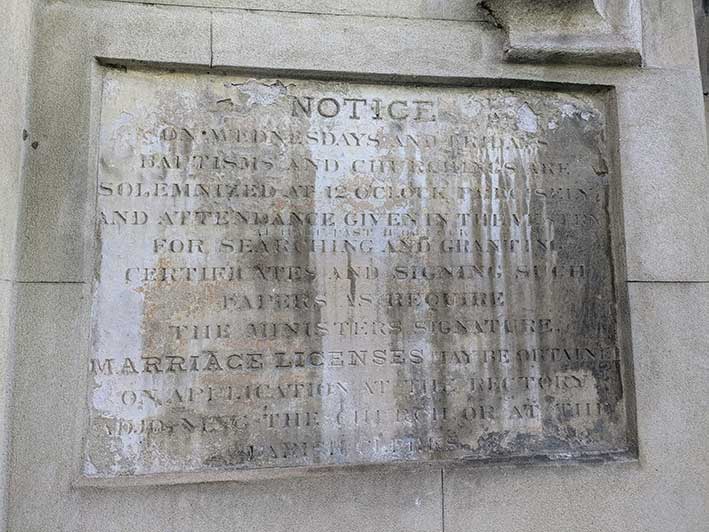
'NOTICE
ON WEDNESDAYS AND FRIDAYS
BAPTISMS AND CHURCHINGS ARE
SOLEMNIZED AT 12 O'CLOCK PRECISELY
AND ATTENDANCE GIVEN IN THE VESTRY
– AT HALF PAST 11 O'CLOCK –
FOR SEARCHING AND GRANTING
CERTIFICATES AND SIGNING SUCH
PAPERS AS REQUIRE
THE MINISTERS SIGNATURE.
MARRIAGE LICENSES MAY BE OBTAINED
ON APPLICATION AT THE RECTORY
ADJOINING THE CHURCH OR AT THE
PARISH CLERKS.'